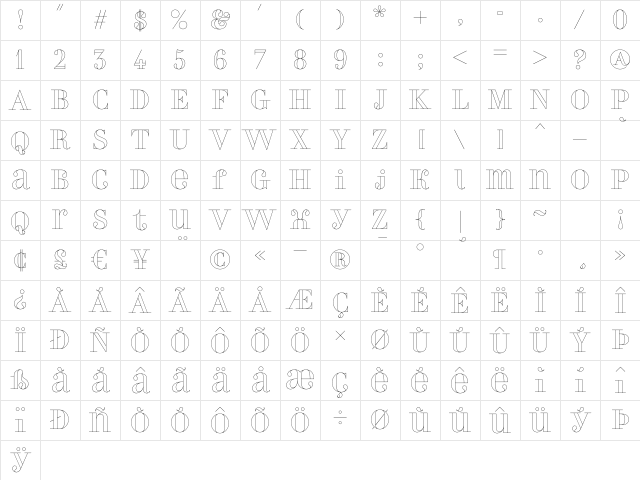
PerlaOutline Regular Free Font
PerlaOutline Regular
Design Context for PerlaOutline
PerlaOutline is built around its visual character rather than neutral utility - its distinctive forms are designed to make an impression at display sizes.
Font Pairing: Pair with a clean neutral sans-serif for body copy to let PerlaOutline's character lead without overwhelming the composition.
Pro Tip: Use PerlaOutline exclusively at display sizes - it was designed to be seen, not read at length. Let a neutral companion handle body copy.